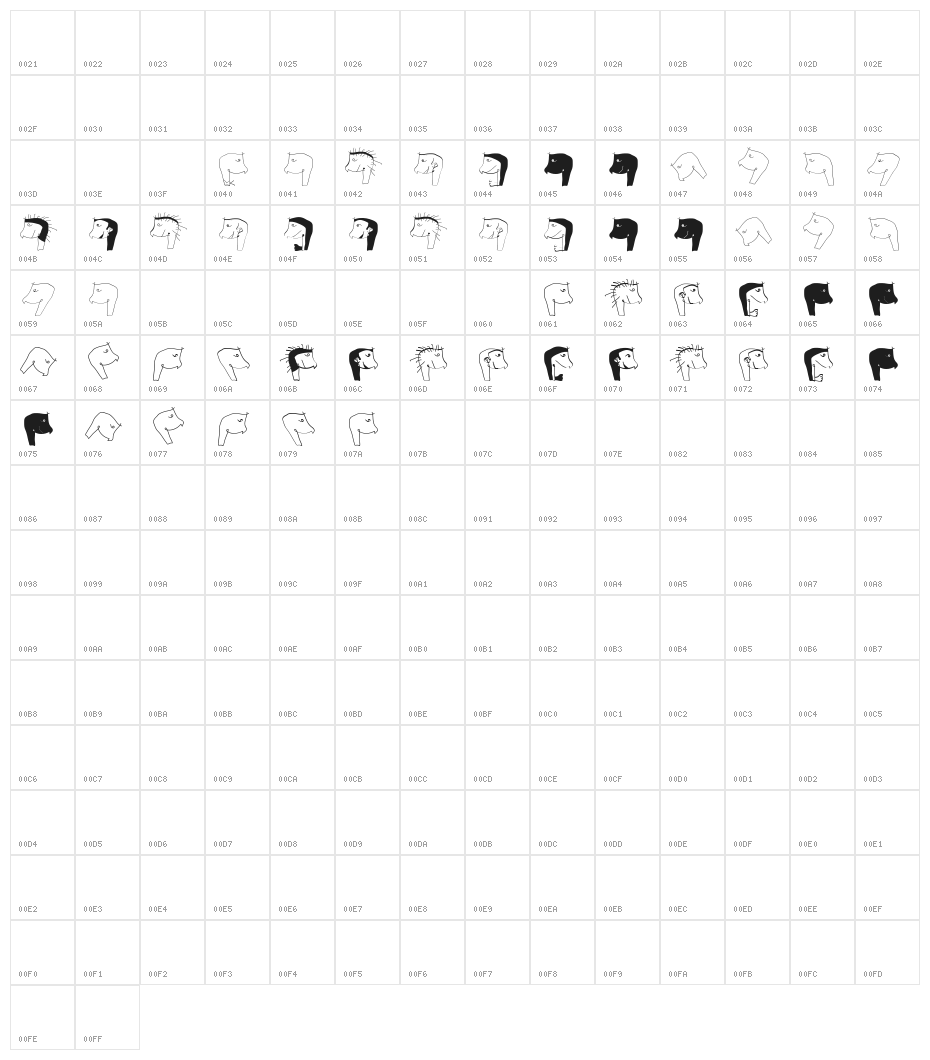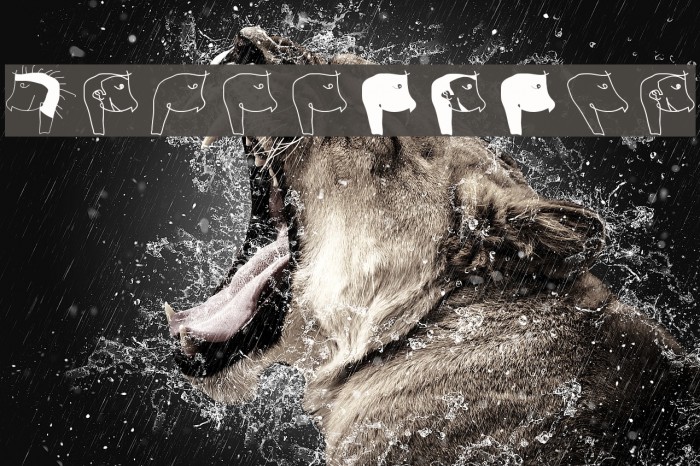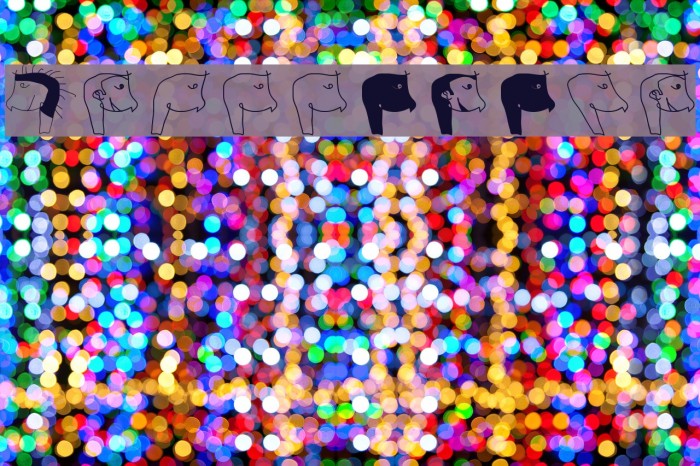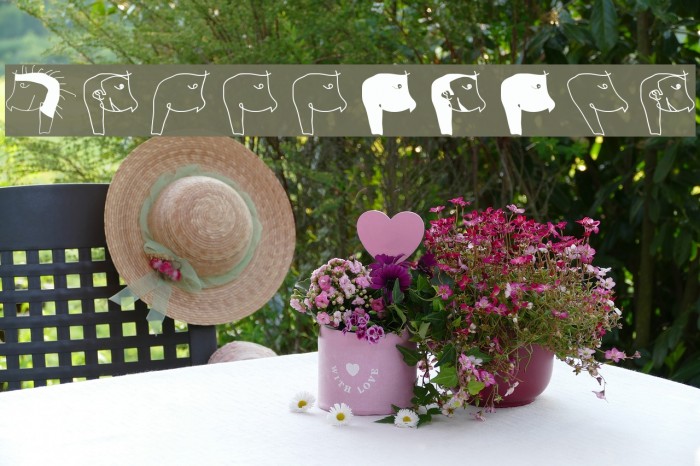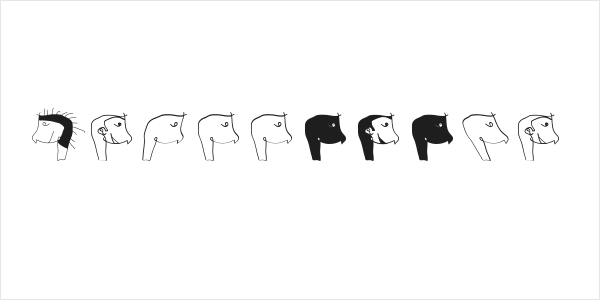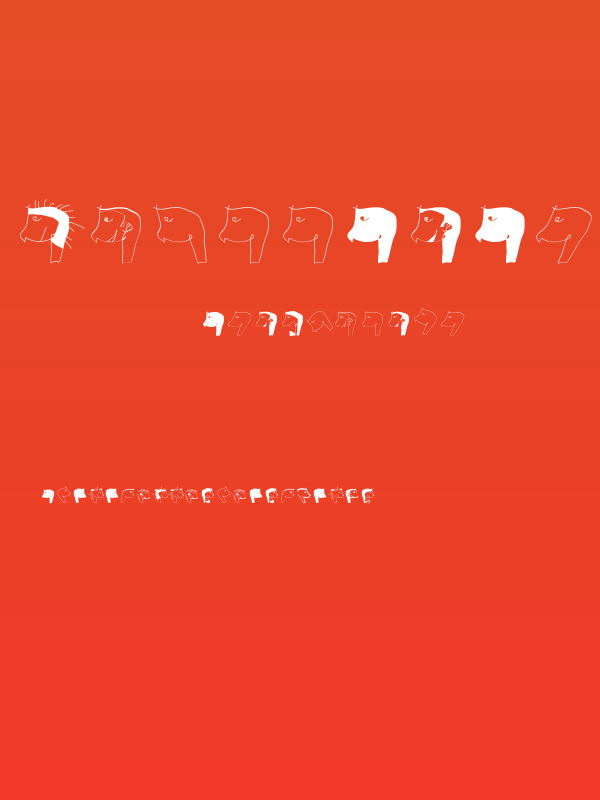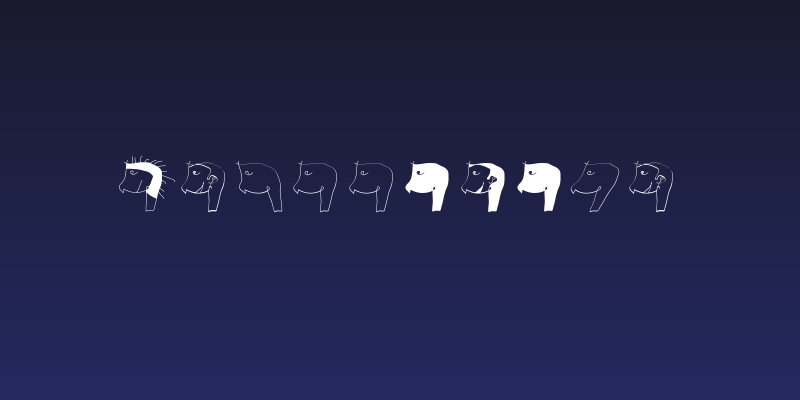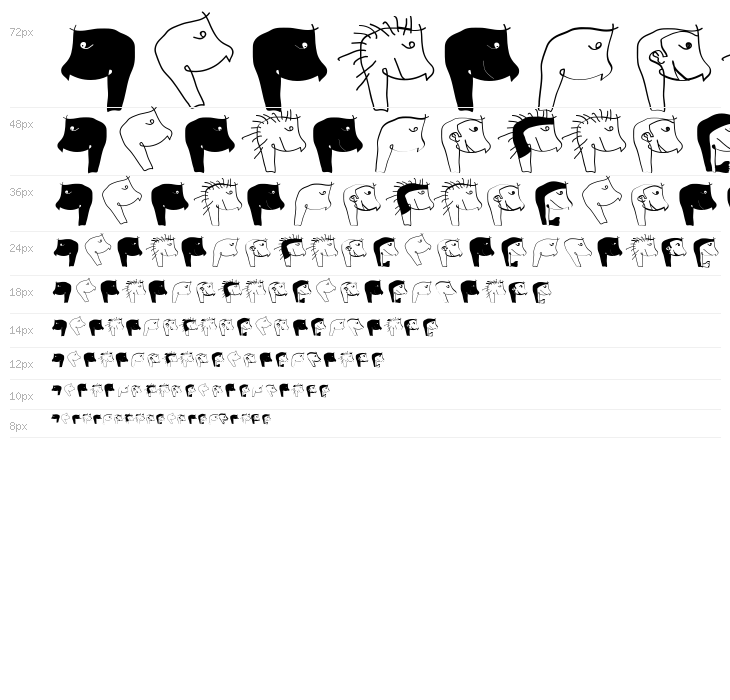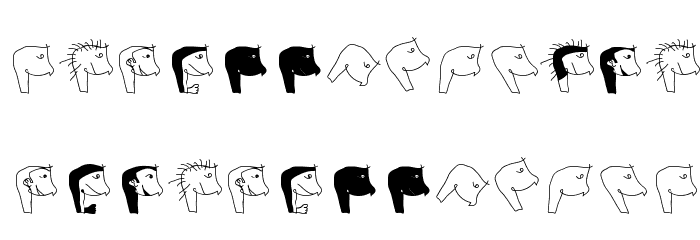
Krizzeleyn Font
Krizzeleyn Description
This is not a valid font. The image contains a series of abstract, cartoonish character illustrations that resemble human heads with varying hairstyles and expressions. Each character is unique, with some filled in black and others outlined in black. The designs are playful and artistic, lacking any traditional typographic elements.
| Overall Style | Artistic, Abstract |
| Use Case | Illustrations, Art projects |
| Proposed Projects | This style could be used for artistic projects, character design, or creative illustrations. |